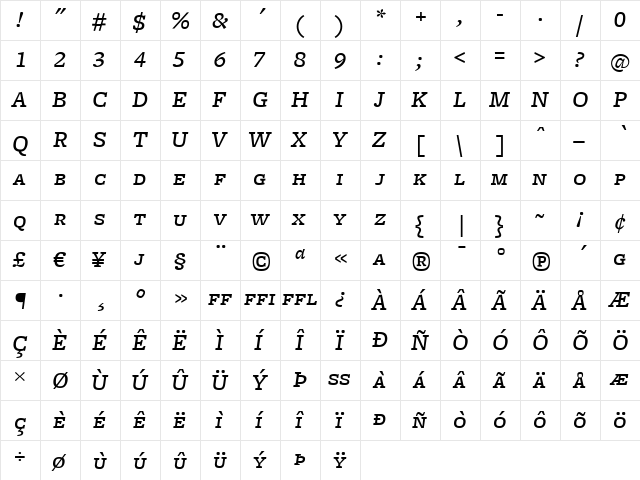
FreightMicro MediumItalicSC
MediumItalicSC · Joshua Darden & Phil's Fonts, Inc Joshua Darden ·
Foundry Joshua Darden & Phil's Fonts, Inc
FoundryJoshua Darden & Phil's Fonts, Inc
DesignerJoshua Darden
Design Context for FreightMicro Typeface
FreightMicro takes a measured approach to typography — its balanced proportions and neutral character make it a reliable workhorse for both digital and print work. The slanted form adds forward momentum and visual energy.
Pro Tip: Try FreightMicro for annotation and caption copy alongside an upright companion — the contrast in angle creates a dynamic but ordered typographic system.